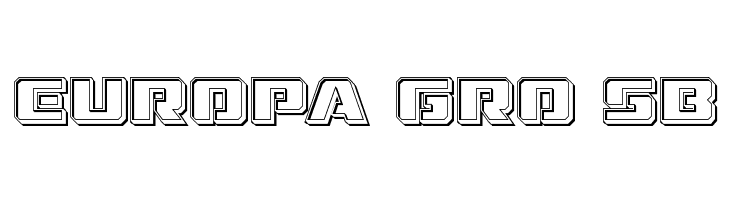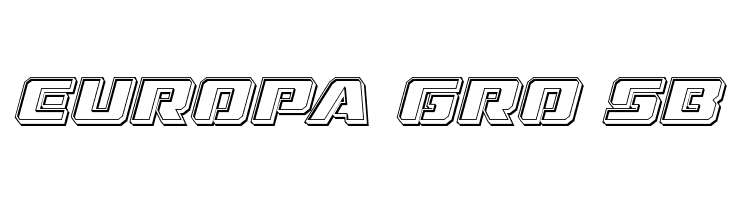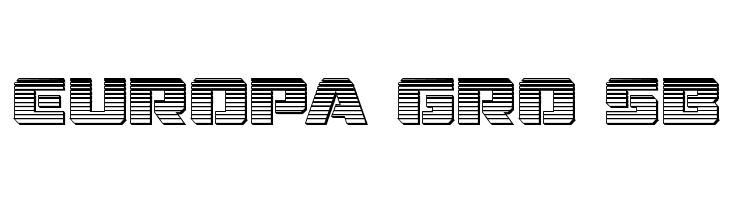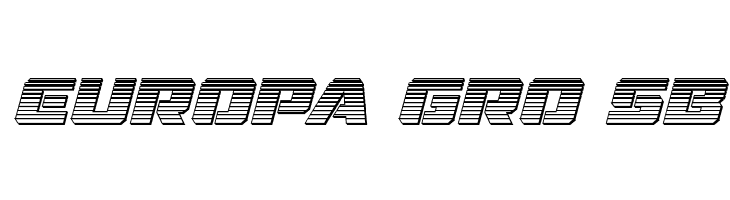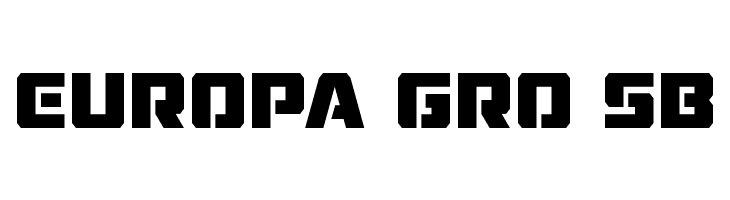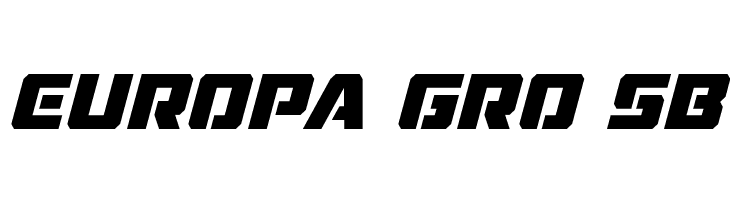
A futuristic, geometric font with bold, blocky letterforms.
A bold, geometric font with a modern and impactful design.
A bold, geometric font with an industrial and modern style.